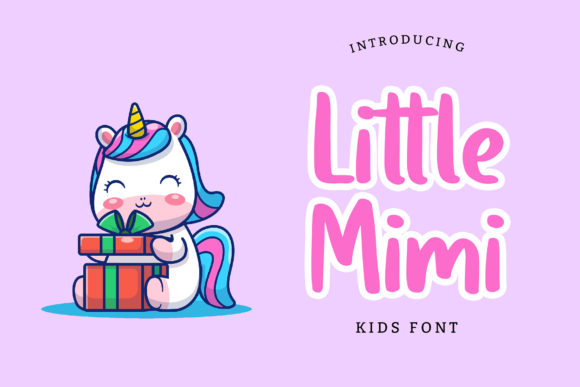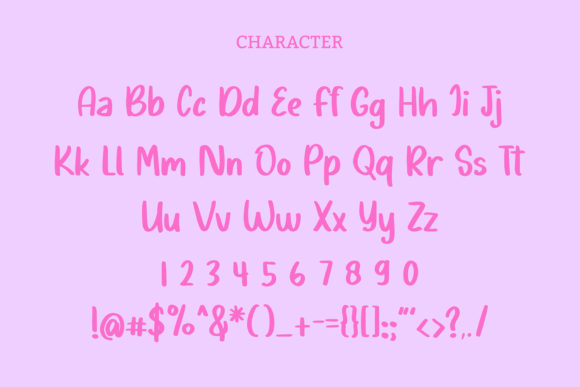
About Little Mimi Font
Little Mimi embodies fun, quirkiness and authenticity. This enchanting handwritten font will turn any creative idea into a true standout. Get creative with its childlike playfulness, and use it to brighten up any kids and school project!